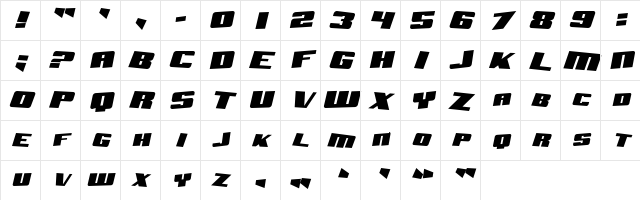
SF Aftershock Debris Solid Italic
SF Aftershock Debris Solid Family
Design Context for SF Aftershock Debris Solid
SF Aftershock Debris Solid is a composed and adaptable typeface that performs quietly and consistently across a wide range of design contexts. The slanted form adds forward momentum and visual energy.
Pro Tip: Use SF Aftershock Debris Solid for emphasis, pull quotes, and subheadings where its slanted energy can add rhythm to the layout.